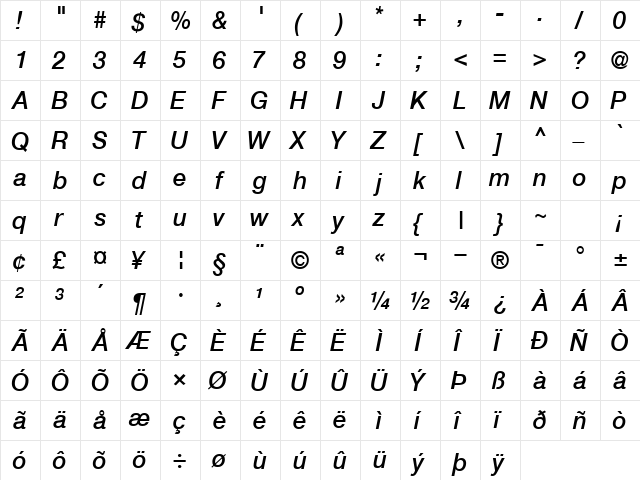
ContextRepriseMediumSSK Italic
Design Context for ContextRepriseMediumSSK Typeface
ContextRepriseMediumSSK offers clean, dependable letterforms without strong stylistic allegiance, making it a practical choice for designers who need flexibility. The dynamic lean of this cut emphasises speed and emphasis in any layout.
Pro Tip: Use ContextRepriseMediumSSK for emphasis, pull quotes, and subheadings where its slanted energy can add rhythm to the layout.